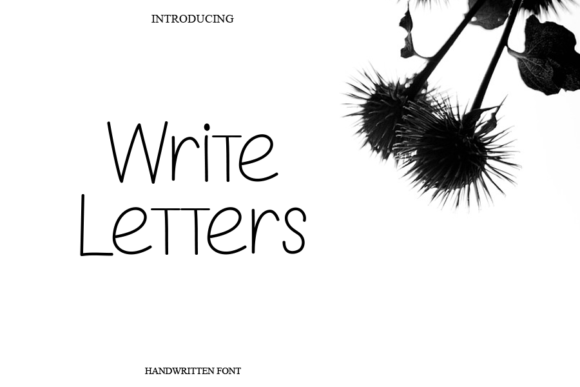
Are you looking for a font that will make your app, website, or design project stand out from the rest? Look no further! Write Letters Font is a cheerful and well-rounded sans serif font that will add personality and charm to any project.
With its consistent, elegant, and eye-catching look, Write Letters Font is the perfect choice for games, apps, websites, and more. It will help you create unforgettable experiences for your users and bring your projects to life.
This font exudes an air of sophistication and professionalism that will make your projects look polished and put-together. Whether you're creating a logo, branding materials, website, or any other digital creation, Write Letters Font will impress your audience and leave a lasting impression.